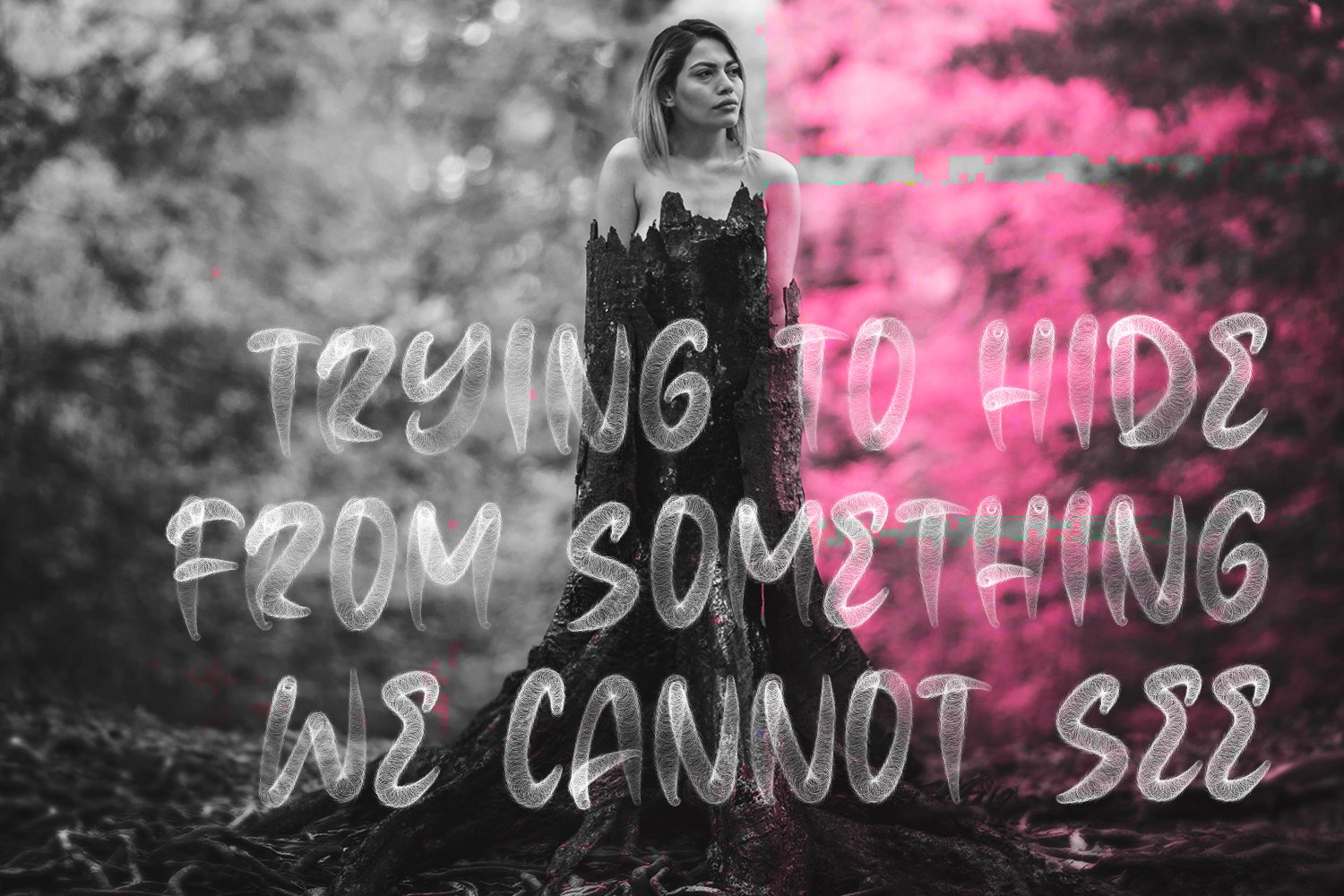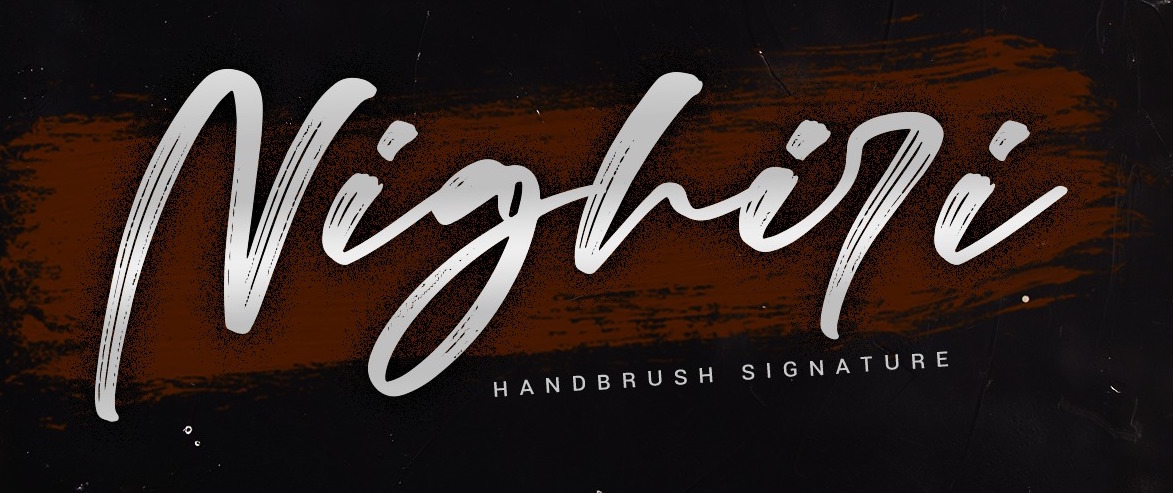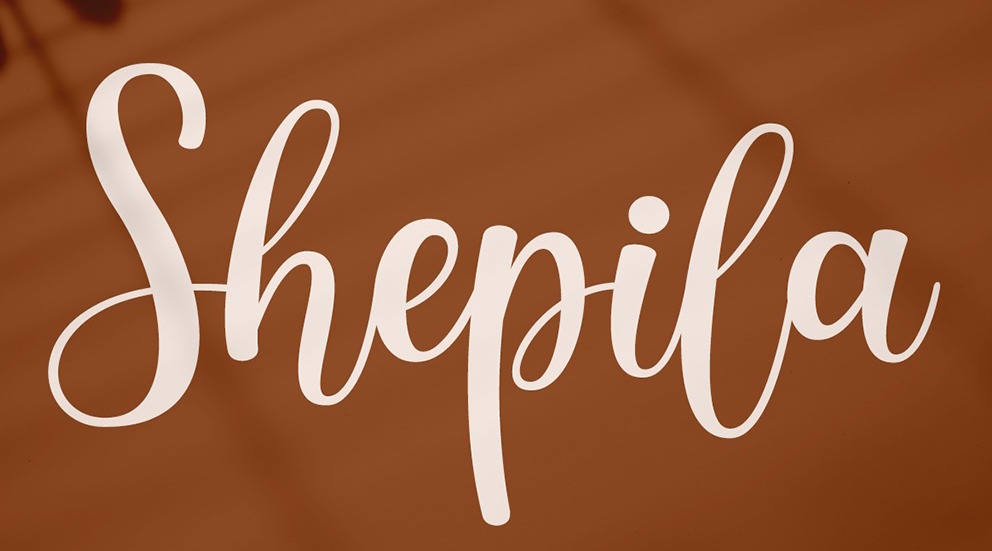
Motokiwo [Anton Cahyono]
Madiun, Indonesia-based designer (b. 1992) of these typefaces in 2018: James Black, Wilgaty (Pen, Smooth, Rough), Billy The Gang (signage script), Smoothy, Husterdun (signature font), Brave Heart (graffiti brush), Husterdun (Script, Serif), Genit, Atziluth (a Cyrillic version was developed by Cherry Vishnya in 2019), Beatrix Signature and Rotterland.
Typefaces from 2019: Modric, Horrible Brush, Heroic Mage, Southima, Billybond, Cherio (script), Mommy Lemon, Storytelling (a Treefrog style script), Canadian Brusher, Gaspol Remblong, Husterdun Script, Islandia (a signature script), Nighiri (dry brush), Odishary, Marthiline (a dry brush script), Musician Crush, Bellayla, Cherrydorry (a monoline script with tall ascenders), Belgedes (script), Genit, Mode Style, Carolissa, Londoner (dry brush), Crushed, Bridgesty, Jiangkrik (free), Seconds (brush script), Raidden Script, Harley (a stick font, with a stencil style), Glarious.
Typefaces from 2020: Orange Melon, Instabread (a signage script), Heidenberg (a retro signage script), Hellena (a monoline script), Konichiwa (a dry brush script), Romania (a monoline script), Ballpoint Rush, Letter Sketch, Ben (a playful 18-style Peignotian sans with a baby curl lower case g), Courteous (a tall condensed serif), Time Breaker (brush), Shepila, Bashington, Dhealova, Blacklisted, Dichigan, Claudio (a rounded sans), Microba Pro SVG, Courteous, Oh Chewy, Hatchback (thick brush script), Hypetype (a dry brush font), Gallardo, Distortion, Attomi Gilbert, Makise (oriental emulation font), Gladis (a fine wide signature script), Ridiculous Script (wild calligraphy), Wkwkwk (a brush font), Canadian Brusher, Last Kids.
Typefaces from 2021: Kiss Me (a flowing script), Marylane (a monolinear upright script), Pendragon (a fat finger script), Rongjam (a dry brush font), Round Block (modular, squarish), Colabero (a headline typeface for fashion mags), Jagadita (a condensed semi-blackletter typeface).